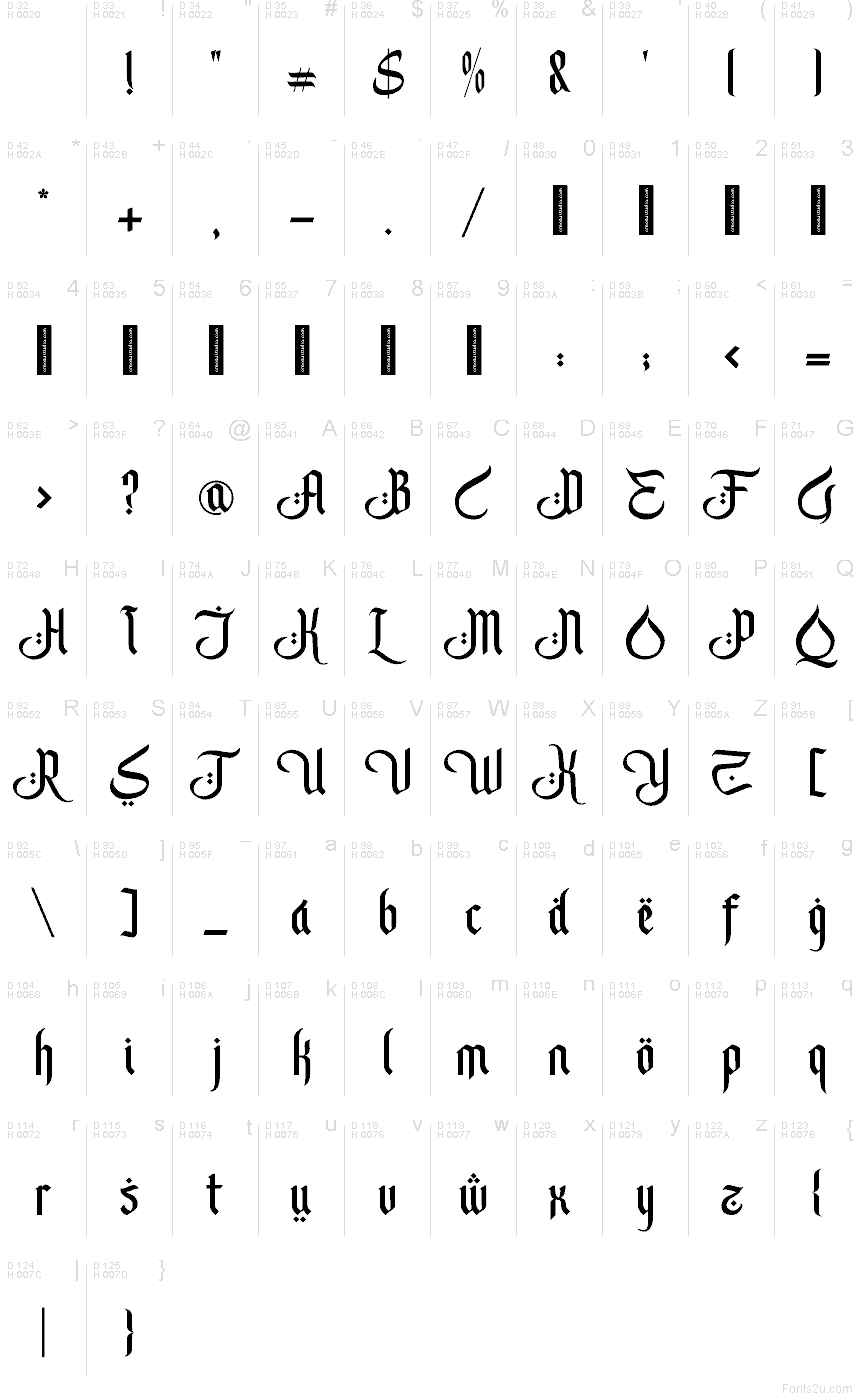
Aljawi
Aljawi font by Omotu Studio is a free faux-Arabic decorative typeface that instantly gives Latin text a Middle Eastern, calligraphic flair. Tall, narrow letters curl into inky hooks and sweeping tails, while clustered dots echo diacritical marks for a distinctly ornamental rhythm. It looks like it’s been brushed onto parchment—dense, dark, and slightly dramatic—yet remains readable at a glance.
Using Aljawi, you can anchor themes for restaurant branding, shisha and lounge signage, festival posters, exotic product packaging, book covers, or event invitations. This free font shines in large titles where its sculpted strokes can breathe, while supporting text can sit in a clean geometric sans for contrast.